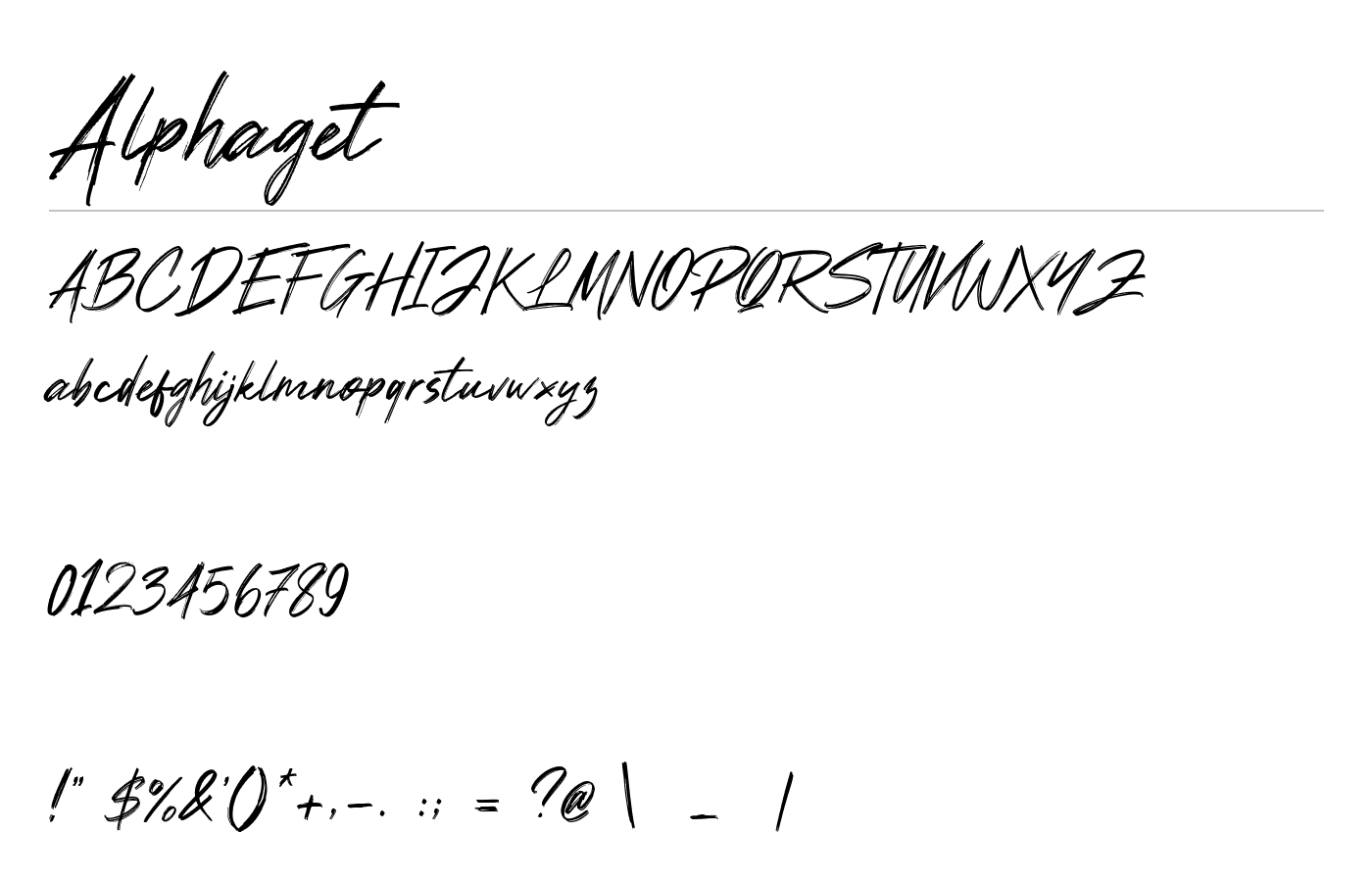
Alphaget is a stylish, hand-drawn script font with a casual and energetic feel. Its slender, slightly textured strokes give it an informal, artistic vibe, making it perfect for creative projects, branding, and invitations that seek a personal, expressive touch. This font works best in headlines and logos where a natural, handwritten charm adds personality and warmth.
Alphaget Font
About Alphaget Font